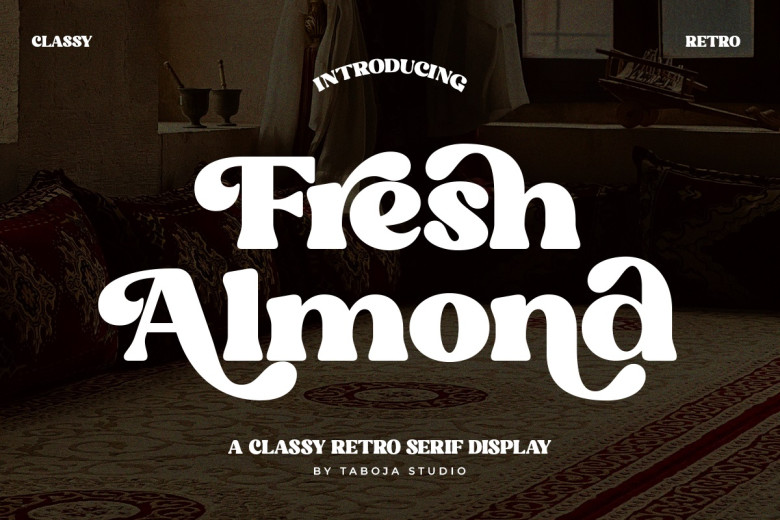
Fresh Almond Font
Fresh Almond Serif Font was carefully designed with care and precision to add elegance to any design, such as logos, branding materials, printed materials or web designs. Its clean lines exude professionalism. Subtle groove-based elements add some character and versatility for various design-related purposes.
With proportions that are well balanced and distinctive serifs fonts providing readability and visual aesthetic appeal in different media forms. Enhance your designs with elegance and style – check out our Almond Serif Font today and allow your imagination to run wild in all your designs.